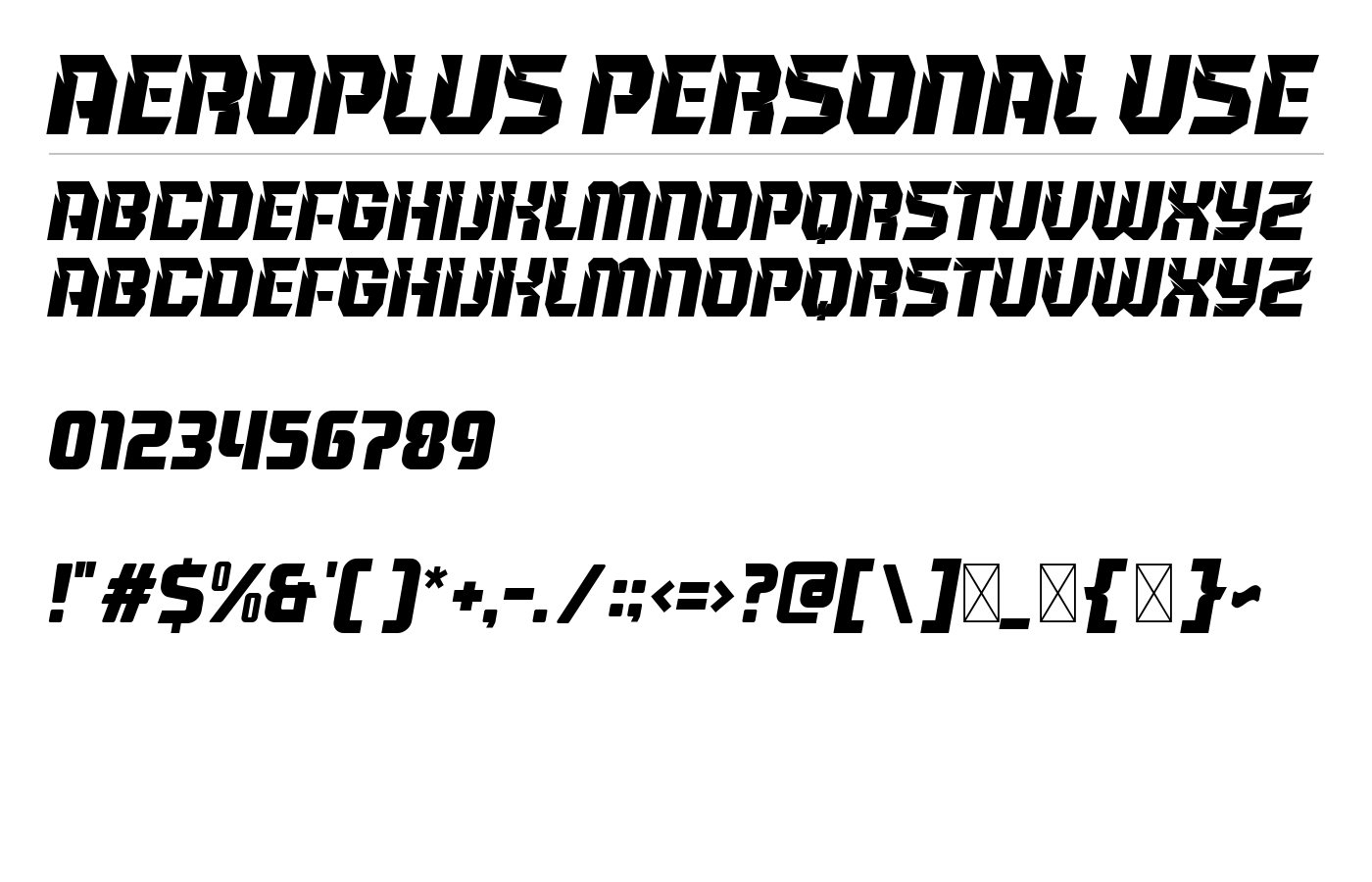
Aeroplus is a bold, condensed sans serif font with a sharp, angular design that gives it a dynamic and futuristic feel. Its italicized, high-contrast strokes and geometric letterforms make it perfect for impactful headlines, logos, and branding that require a modern and energetic vibe. This font works well in sports, technology, and entertainment contexts where a strong, confident presence is needed.
Aeroplus Font
About Aeroplus Font